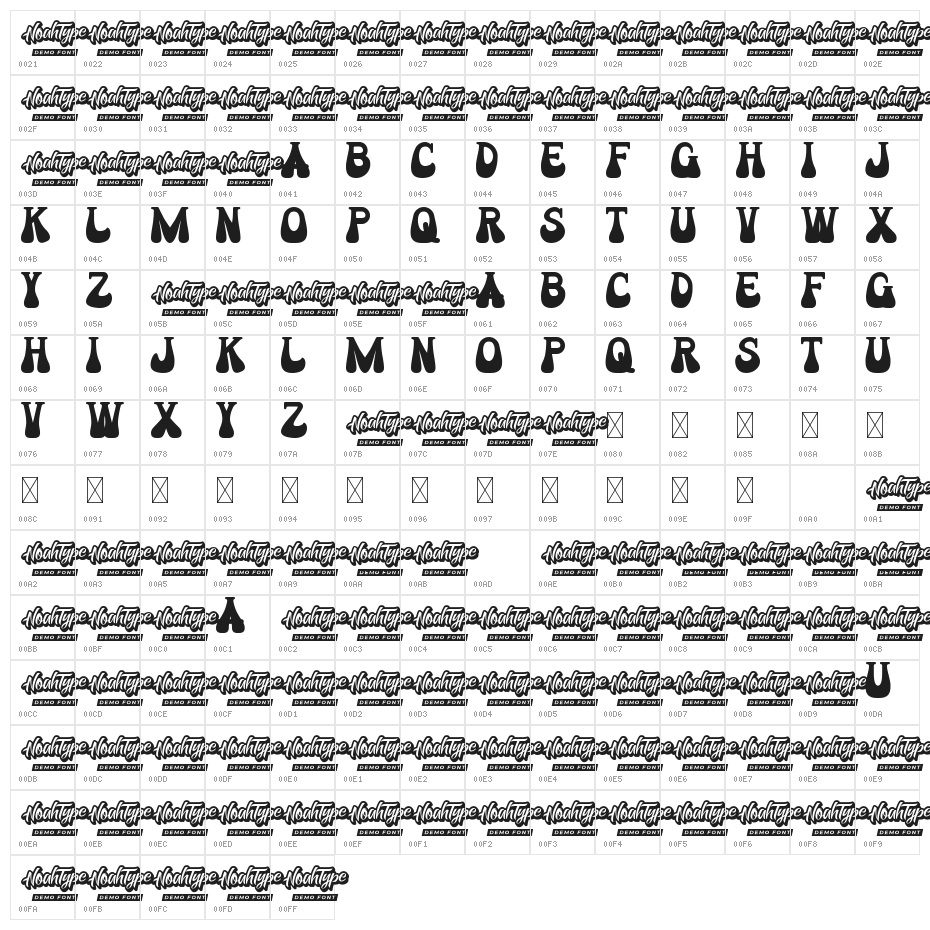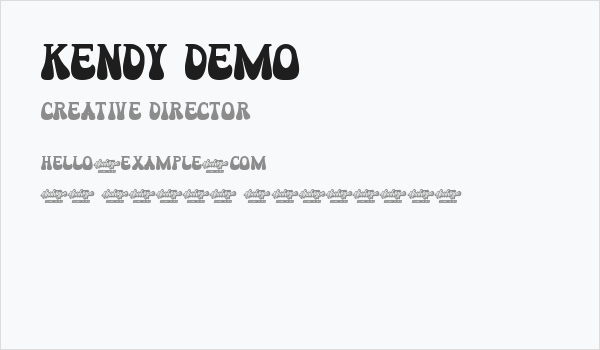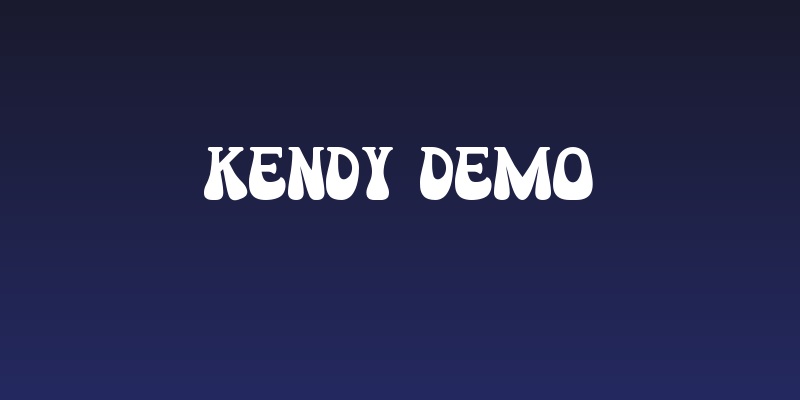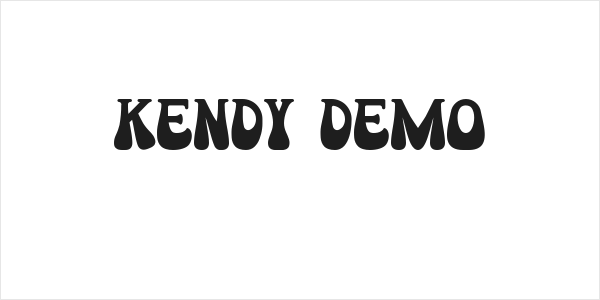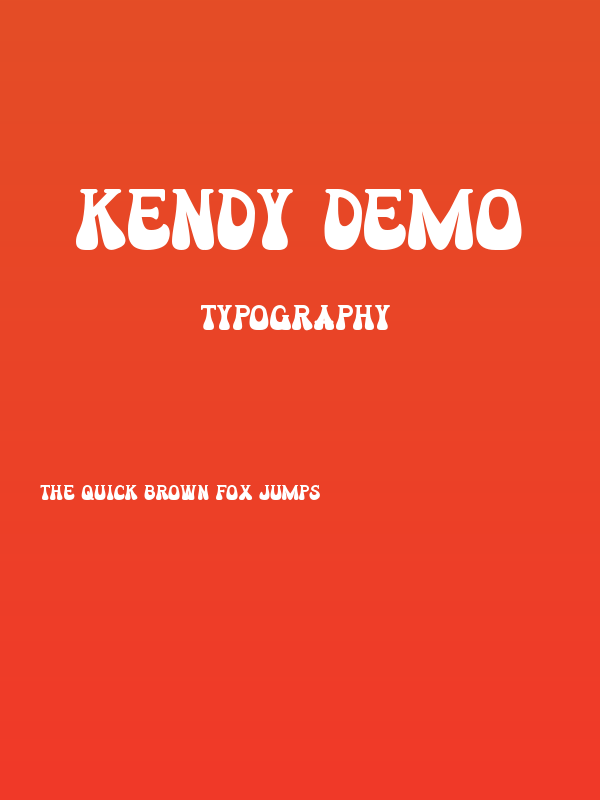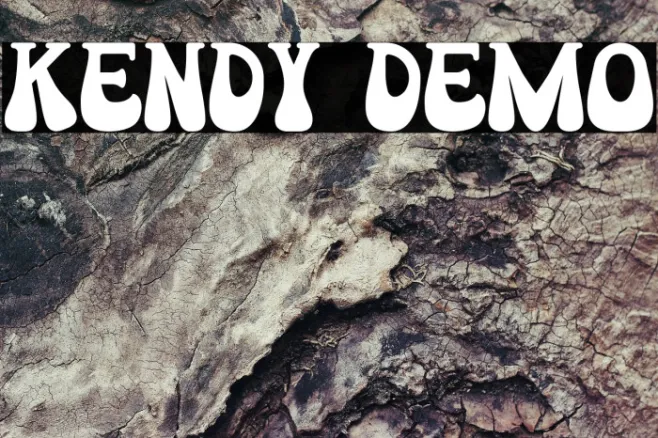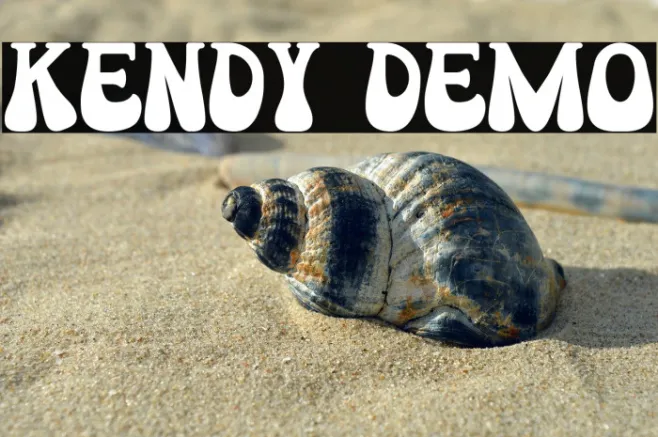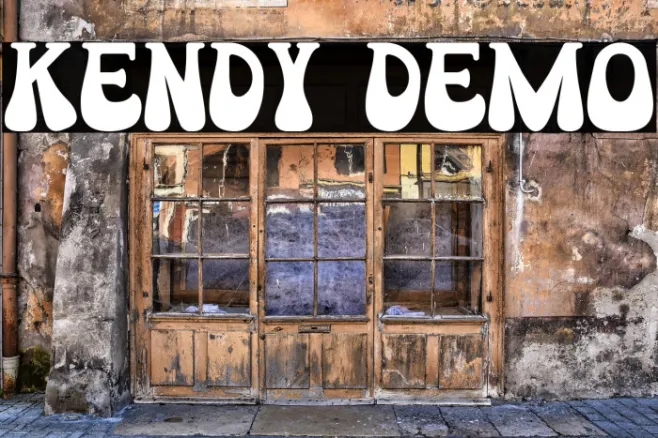
Kendy Demo Font
Kendy Demo Description
This font features a bold, playful design with exaggerated, rounded serifs and thick strokes that create a sense of whimsy and fun. The characters have a unique, bulbous appearance, making them stand out with a strong visual impact. The uppercase letters are particularly striking, with their heavy, rounded forms and distinctive style. The font maintains a consistent weight throughout, ensuring readability while adding a decorative flair. Its boldness and unique character shapes make it ideal for eye-catching designs.
| Overall Style | Playful, Decorative |
| Proposed Projects | Ideal for children's book covers, playful branding, posters, and any design needing a fun, eye-catching typeface. |